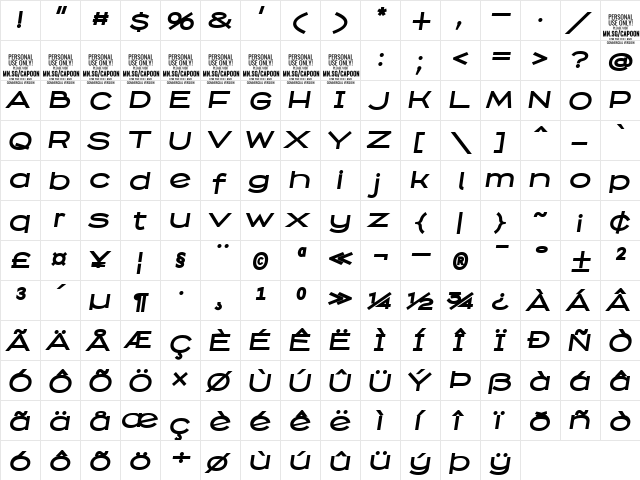
Capoon PERSONAL USE Bold Italic
Design Context for Capoon PERSONAL USE Typeface
Capoon PERSONAL USE is a composed and adaptable typeface that performs quietly and consistently across a wide range of design contexts. The dynamic lean of this cut emphasises speed and emphasis in any layout. Its bold stroke weight gives it real presence on the page.
Pro Tip: Use Capoon PERSONAL USE for emphasis, pull quotes, and subheadings where its slanted energy can add rhythm to the layout.